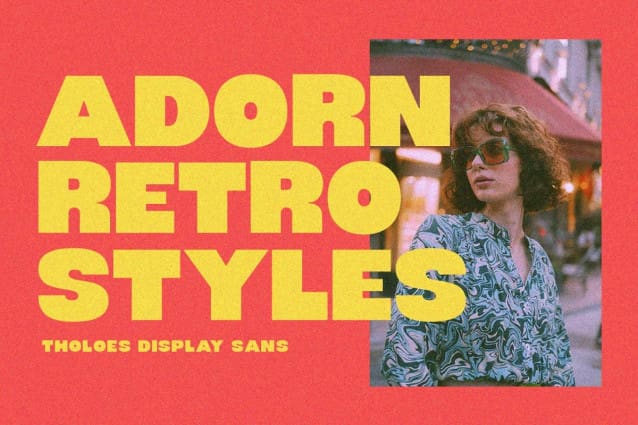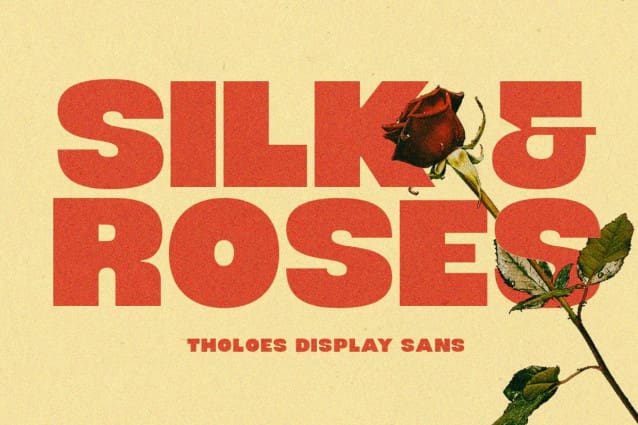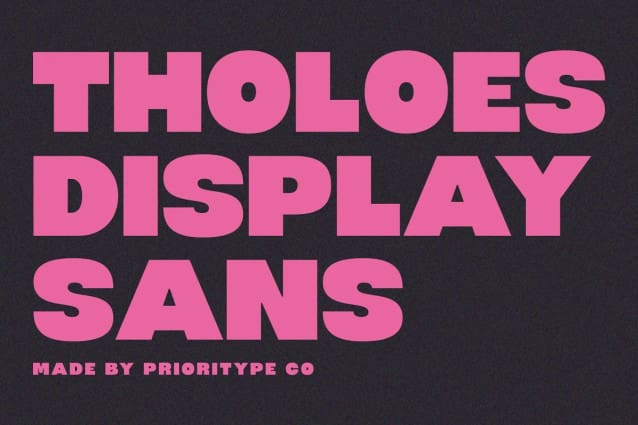
Tholoes Font
Tholoes Font – a bold, dynamic font that radiates confidence. Ideal for posters, branding, logos, and social media, its strong presence commands attention and leaves a lasting impact. Make your mark with “Tholoes” and let your creativity speak volumes.